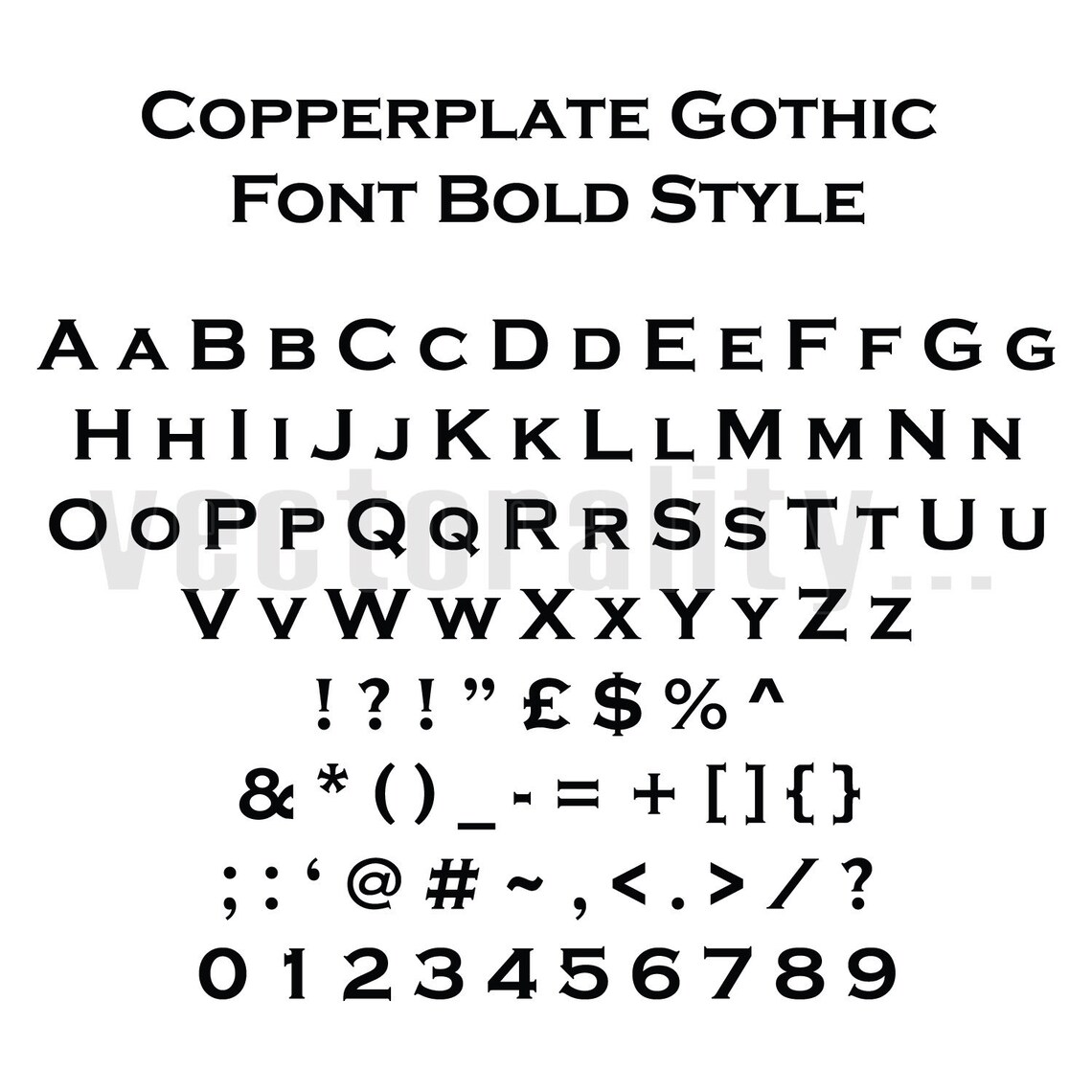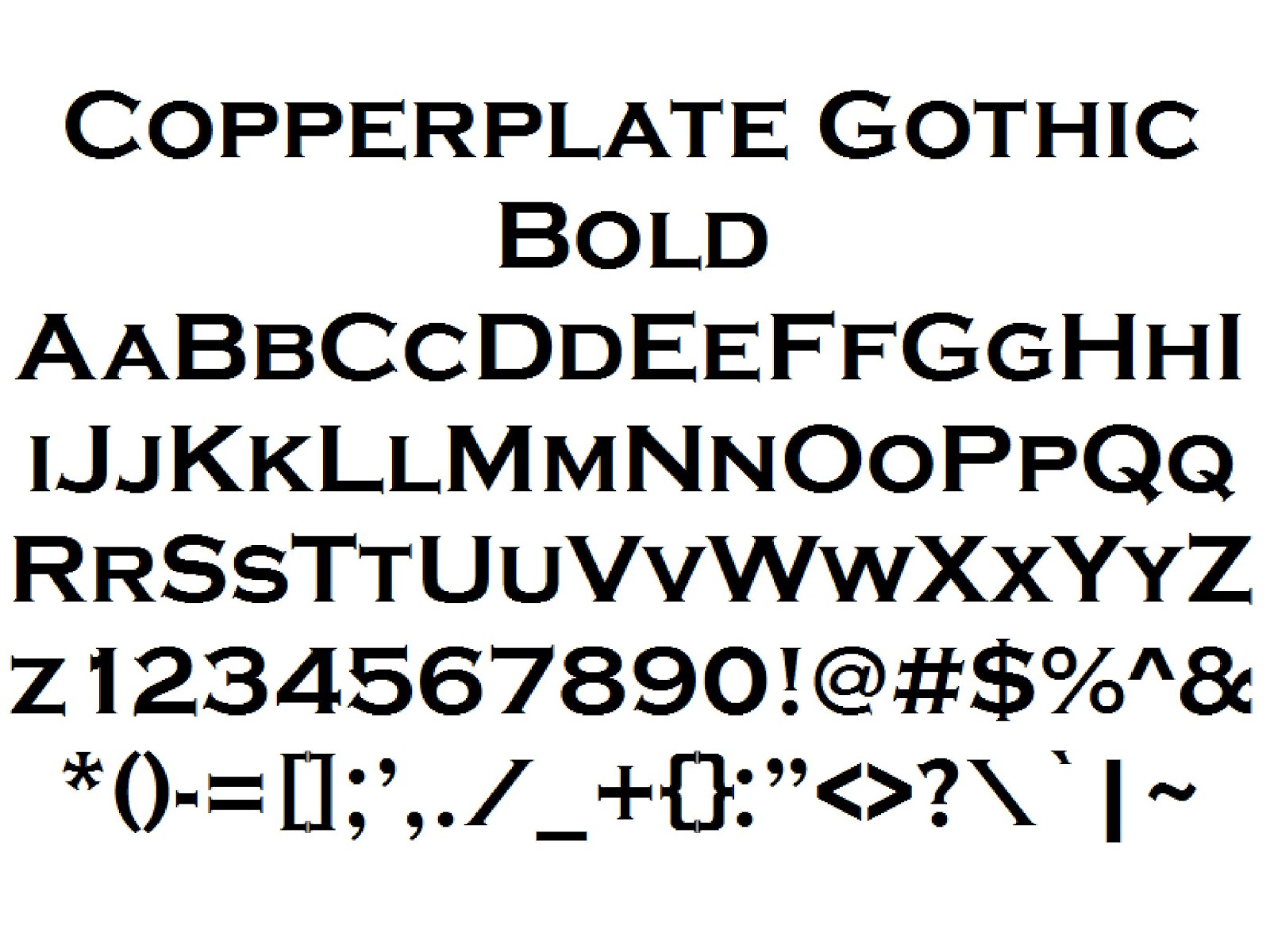
Copper Plate Font
Copper Plate Font - Copperplate cc serif font is a serif display bold modern, a revival of copperplate gothic. Designed by frederic goudy in 1902, copperplate.
Copperplate cc serif font is a serif display bold modern, a revival of copperplate gothic. Designed by frederic goudy in 1902, copperplate.
Designed by frederic goudy in 1902, copperplate. Copperplate cc serif font is a serif display bold modern, a revival of copperplate gothic.
Copperplate cc serif font is a serif display bold modern, a revival of copperplate gothic. Designed by frederic goudy in 1902, copperplate.
Designed by frederic goudy in 1902, copperplate. Copperplate cc serif font is a serif display bold modern, a revival of copperplate gothic.
Copperplate cc serif font is a serif display bold modern, a revival of copperplate gothic. Designed by frederic goudy in 1902, copperplate.
Designed By Frederic Goudy In 1902, Copperplate.
Copperplate cc serif font is a serif display bold modern, a revival of copperplate gothic.